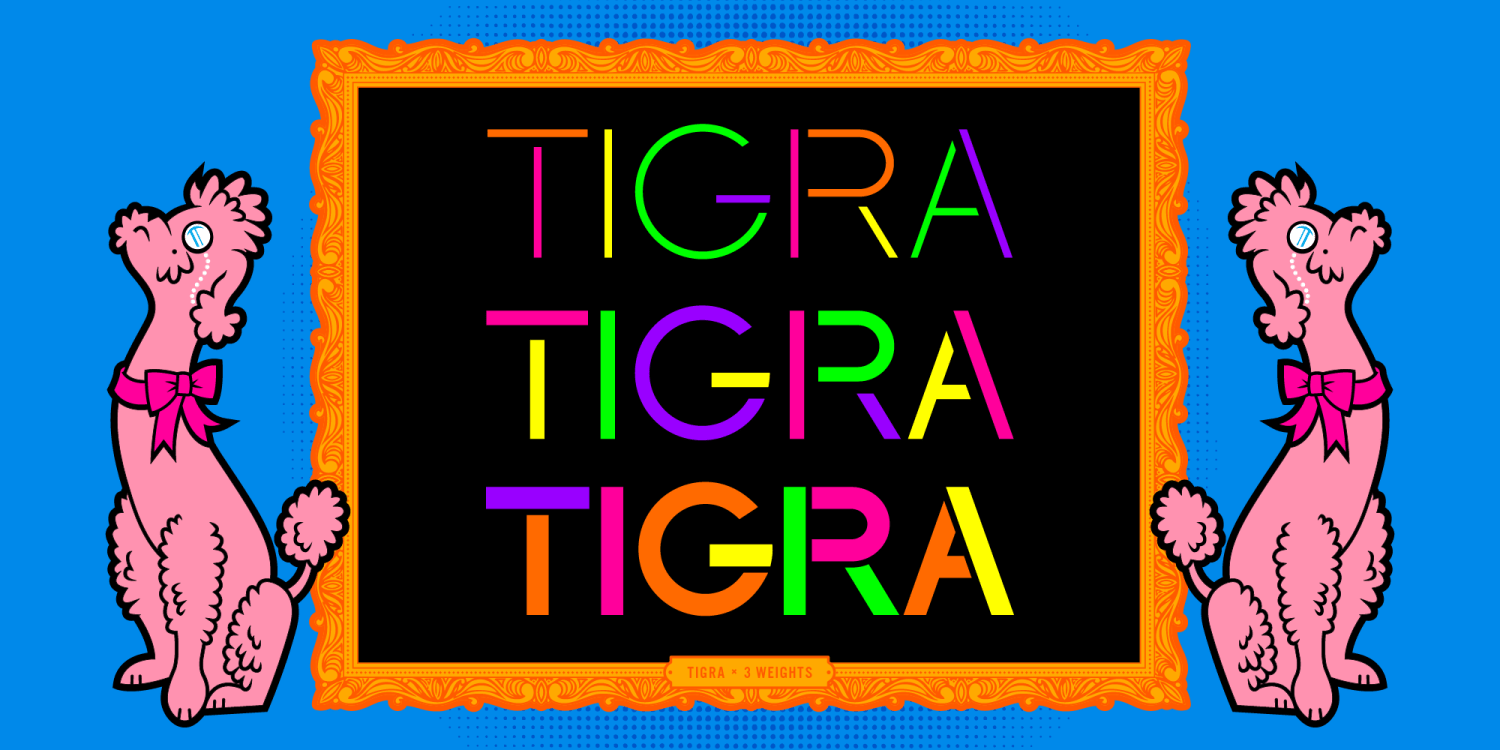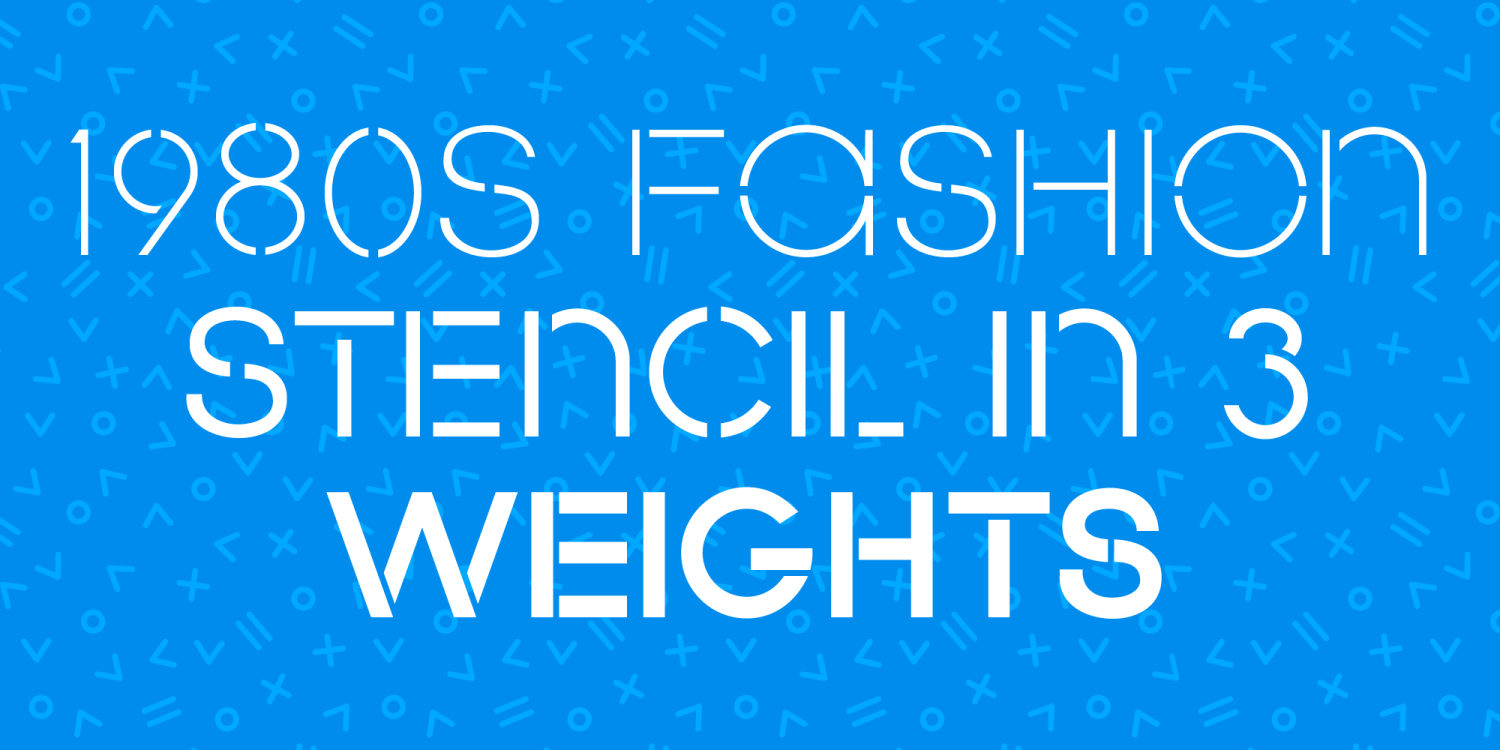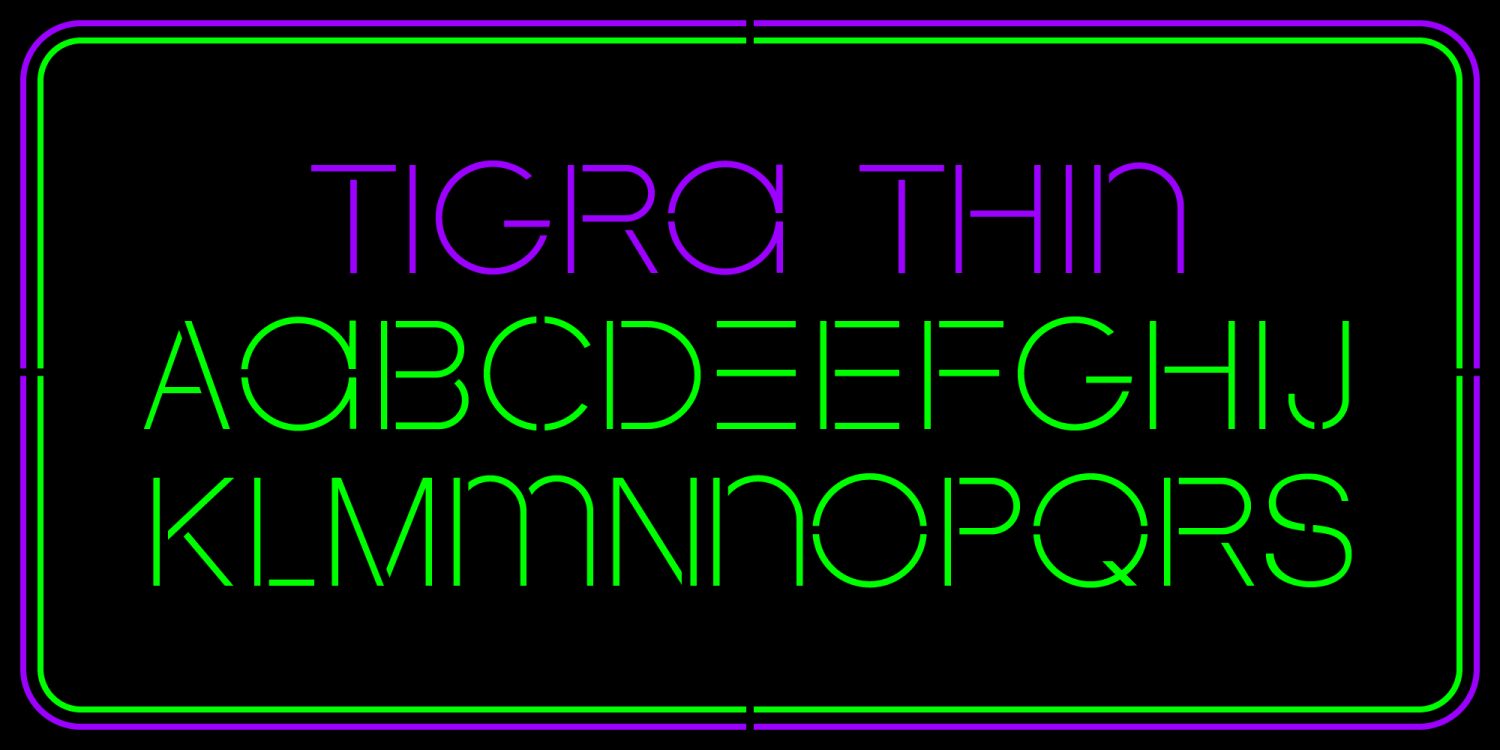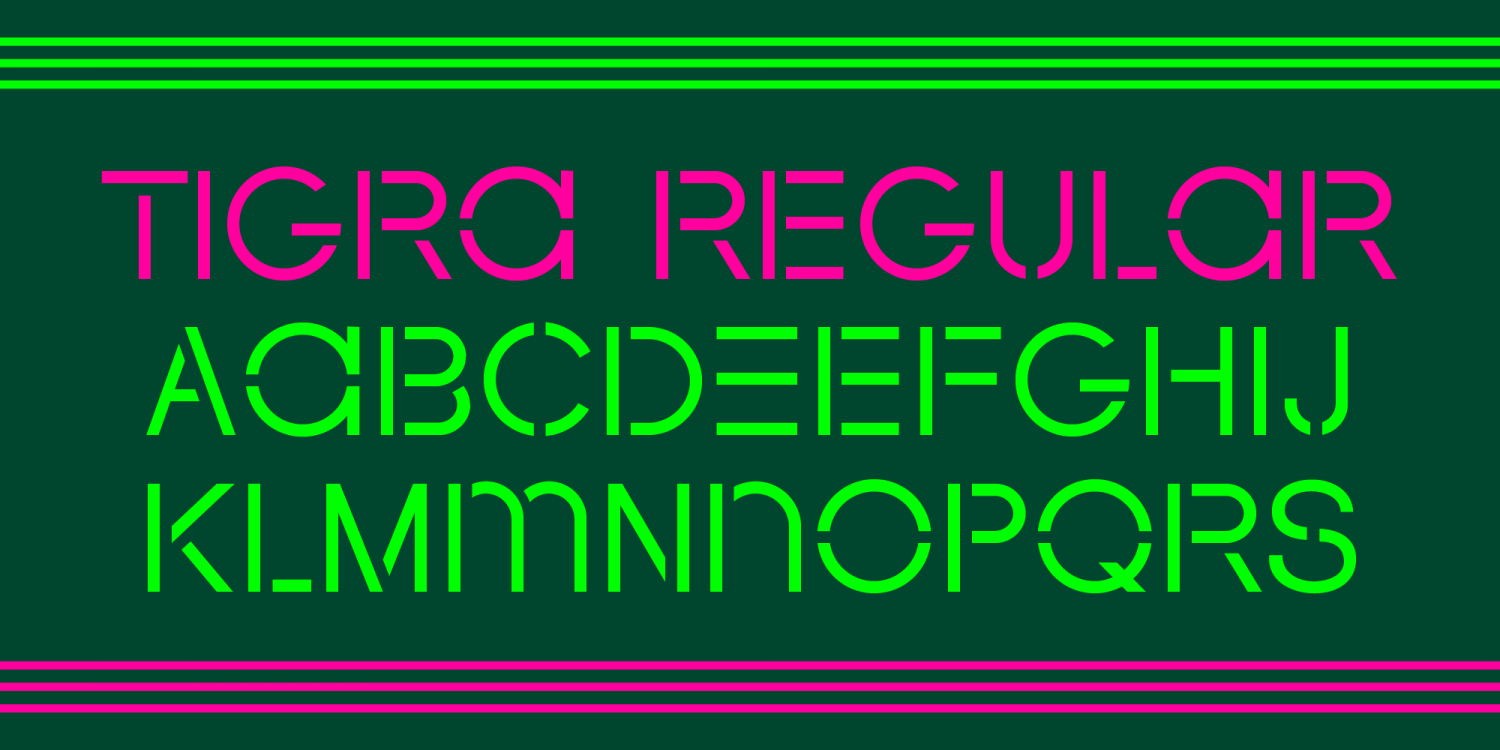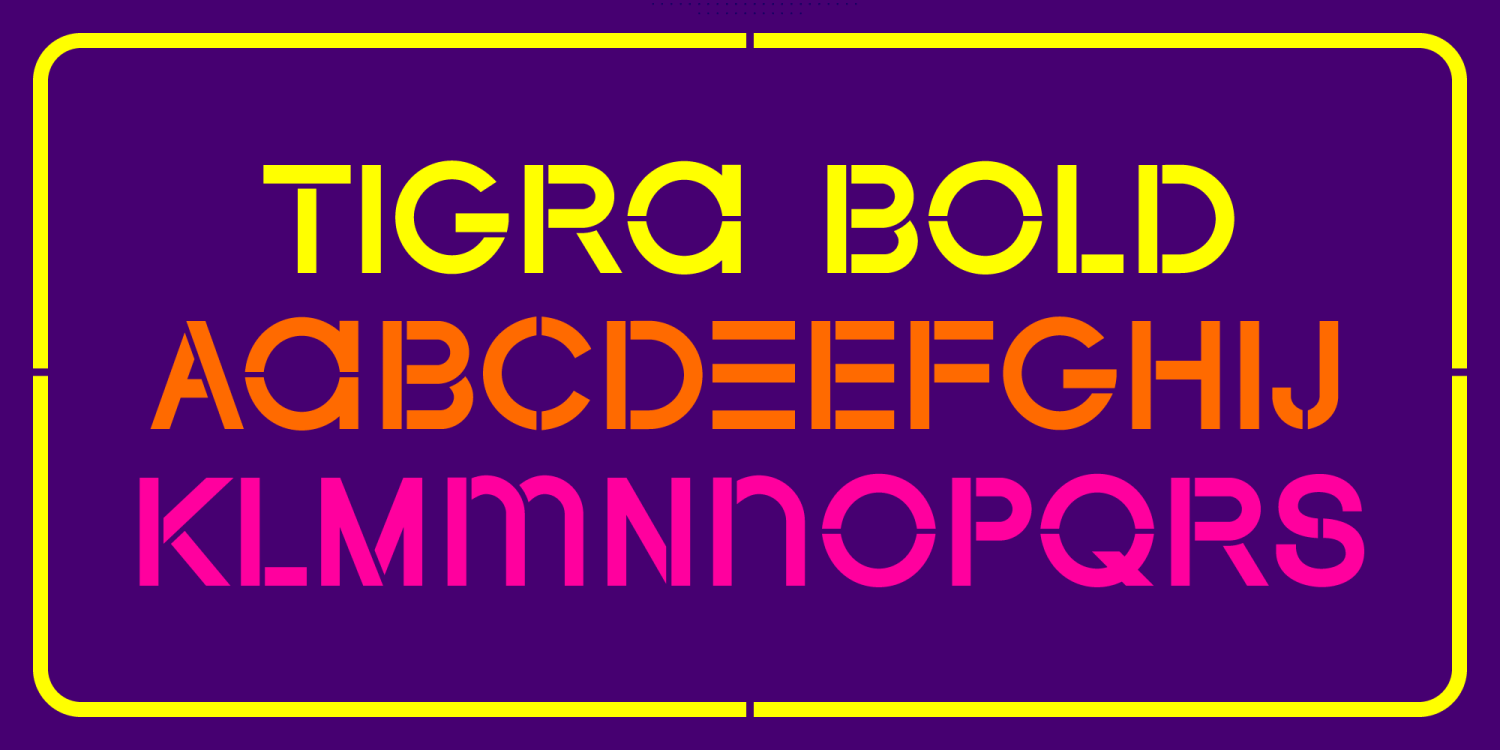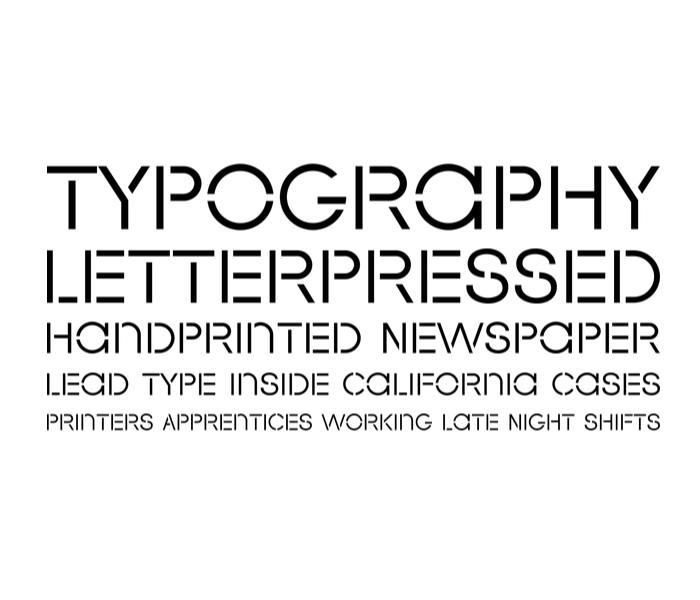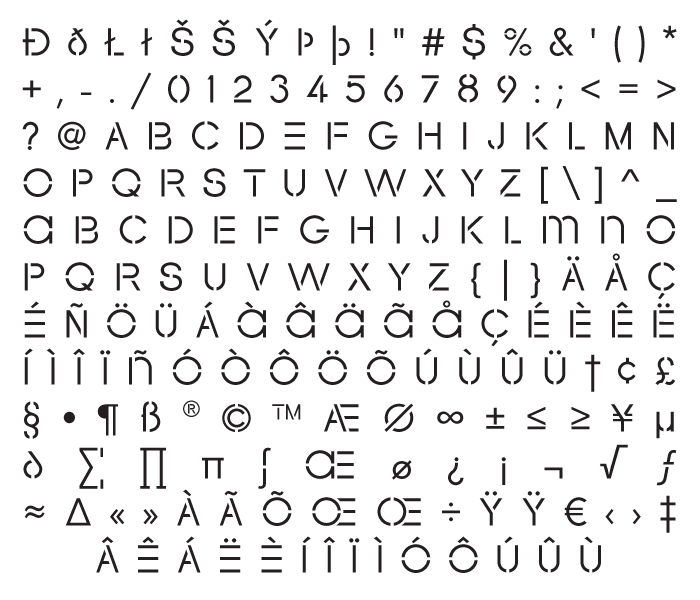
Let's face facts: stencil fonts were created for the working man. Stamped on crates down on the docks or hastily spray painted on curbs, the stencil has hasn't had an easy life. Guess what? Stencil's about to get sexified. Enter Tigra. This is a puttin on the good jeans, combin your hair, goin out Friday night type of stencil font. Yup, this one's going in the museum...the art museum.